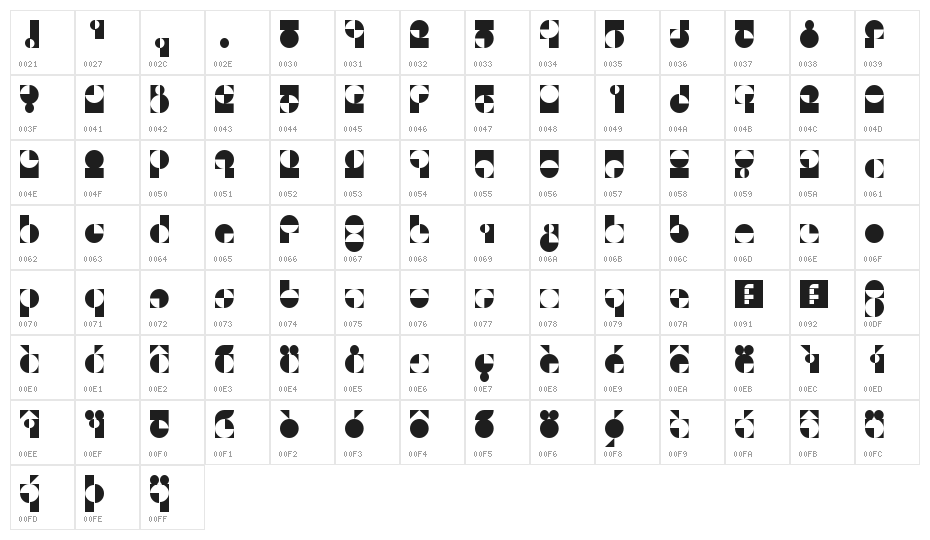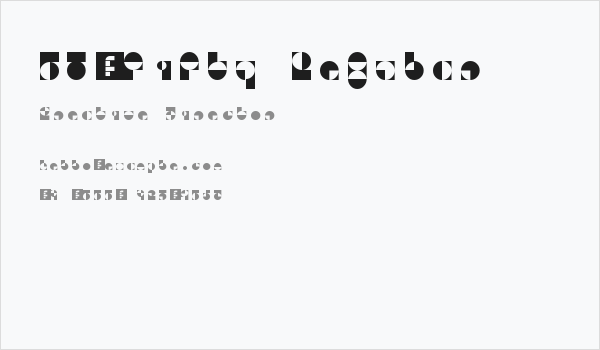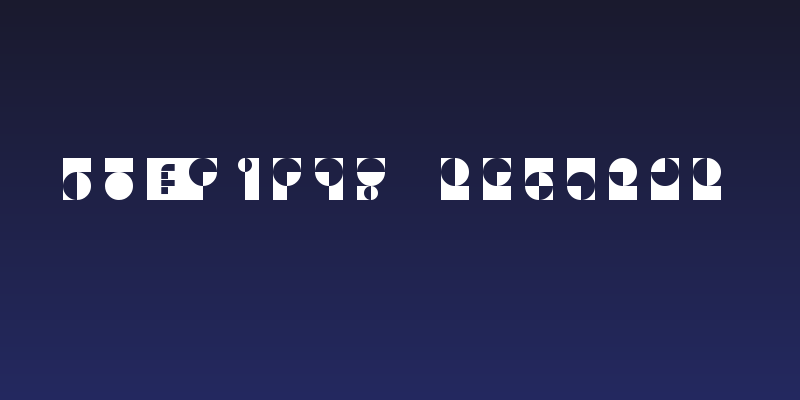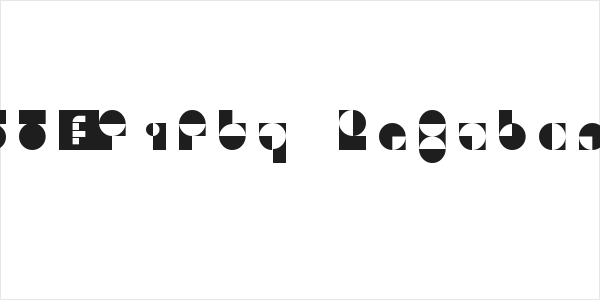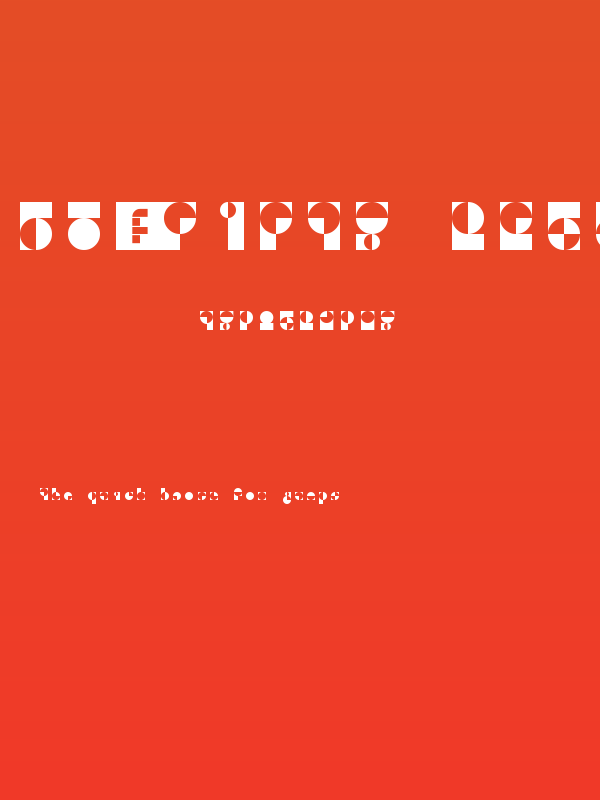
50/fifty Regular Font
50/fifty Regular Description
This font features a highly geometric and abstract design, characterized by its use of circular and semi-circular shapes to form each character. The letters and numbers are constructed using a combination of solid and negative spaces, creating a visually striking and modern appearance. The font's unique style is reminiscent of abstract art, with a focus on symmetry and balance. Each character is distinct, yet they all share a cohesive design language that emphasizes boldness and creativity. The font's unconventional approach makes it stand out, offering a fresh take on typographic design.
| Proposed Projects | Ideal for modern art projects, creative branding, posters, and digital media where a bold statement is needed. |